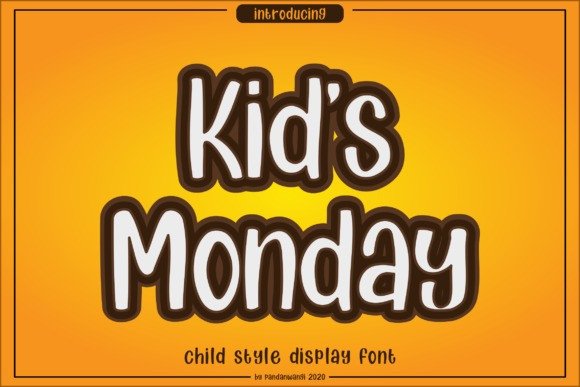
Kids Monday Display Font
Kids Monday Display Font is an incredibly Unique and Interesting Display Font for your Design that is absolutely great for your next creative project. This typeface is designed and shared by pandanwangi. It’s a cute, cute and friendly display font. Its natural and unique style makes it especially suitable for large pool designs.
Its unique characteristics make it suitable for various purposes such as quotes, t-shirt designs, flyers, YouTube channels, labels, logos and any other design that requires a playful touch. The only limit is your imagination!